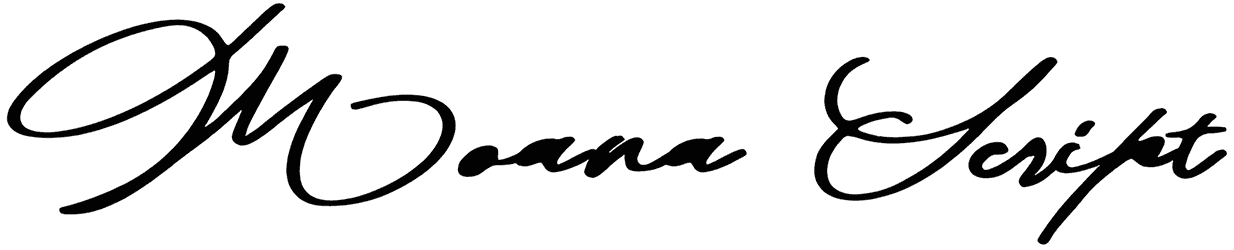
Moana Script Font
The linked handwritten “Moana Script” font can lend a graceful feel to your digital works. This signature font is great for advertising, flyers, postcards, and greeting cards because it has a friendly look.